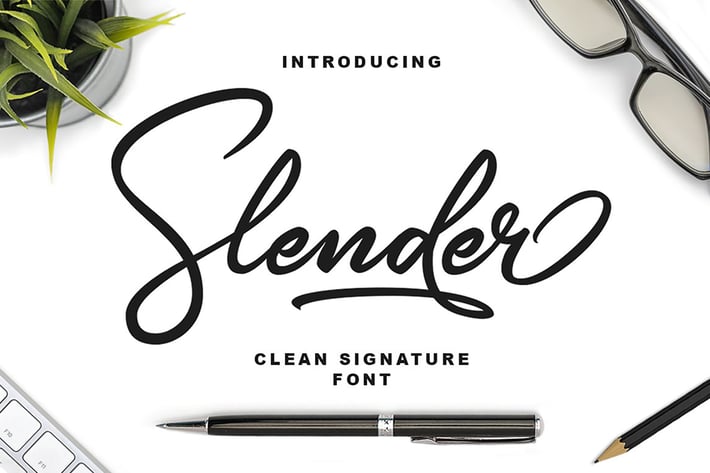
Slender - Elegant Signature Font
Introducing of our new product the name is Slender clean Signature font. inspired by signature and stylish handwriting, Slender font is good for logotype, wedding invitation design, badge, headline, signature, packaging and any more.
Slender font have 336 Glyphs and many alternative character so you can mix and match like a you want, Slender font include 17 Mutilingual Support (Afrikaans, Albanian, Catalan, Danish, Dutch, English, Estonian, Finnish, French, German, Icelandic, Italian, Norwegian, Portugese, Spanisch, Swedish, Zulu)